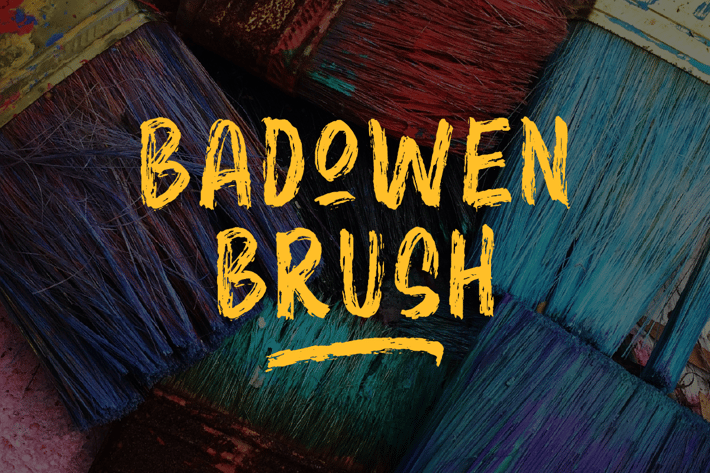
Badowen Brush Font
Badowen is a brush typeface inspired by handmade lettering this, typeface is ready to use and suitable rush design like for Modern design, cover book, poster, flyer etc.
Badowen Regular
Badowen Slant